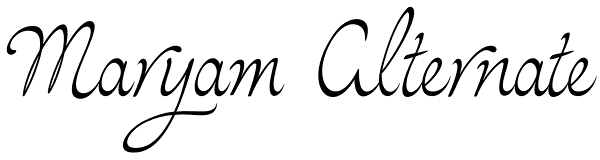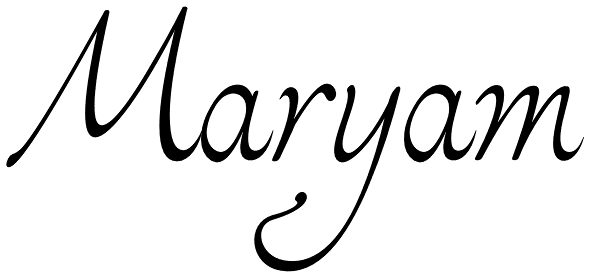
Maryam
Maryam is an Outras Fontes type family designed by Ricardo Esteves Gomes. With moderate contrast, these fonts have elegant and very legible forms even in small x-height sizes. There are more then 70 ligatures in each font, providing a lot of...
Maryam Alternate
Maryam